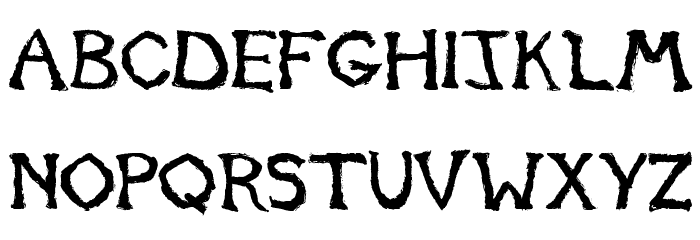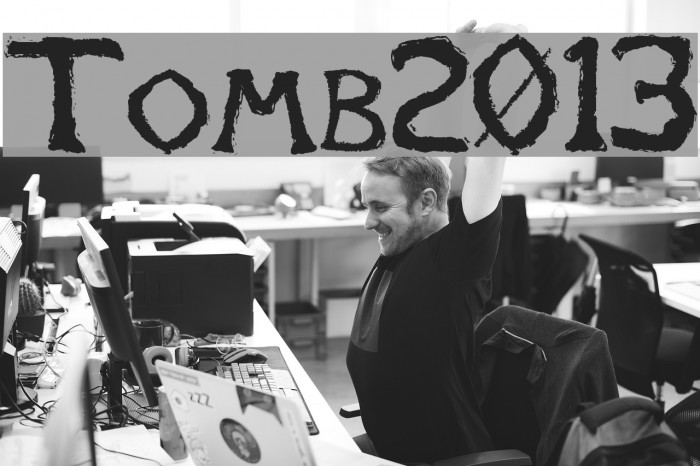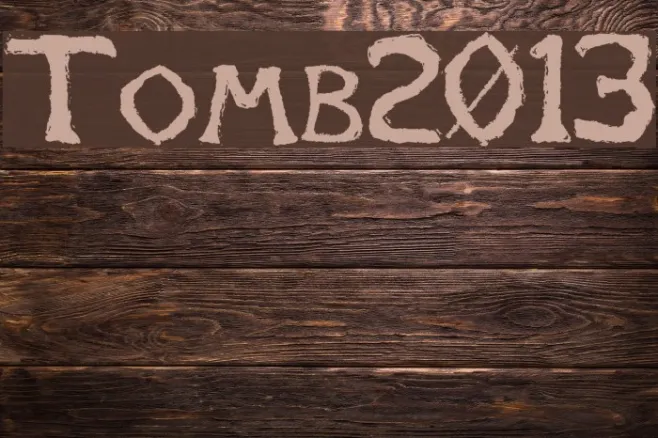
Tomb2013 Font
This font features a rugged, hand-drawn style with uneven edges and a distressed appearance, giving it a raw and organic feel. The characters are bold and slightly irregular, adding to the font's unique character. The uppercase and lowercase letters maintain a consistent style, with a rough texture that suggests a vintage or grunge aesthetic. The numerals and special characters follow the same design principles, ensuring a cohesive look across all glyphs. This font is ideal for projects that require a bold, eye-catching display with a touch of edginess.
A rugged, hand-drawn font with a distressed, vintage aesthetic.
- Proposed Projects: Perfect for album covers, posters, branding for edgy or alternative products, and any design needing a bold, grunge look.
- Overall Style: Vintage, Grunge